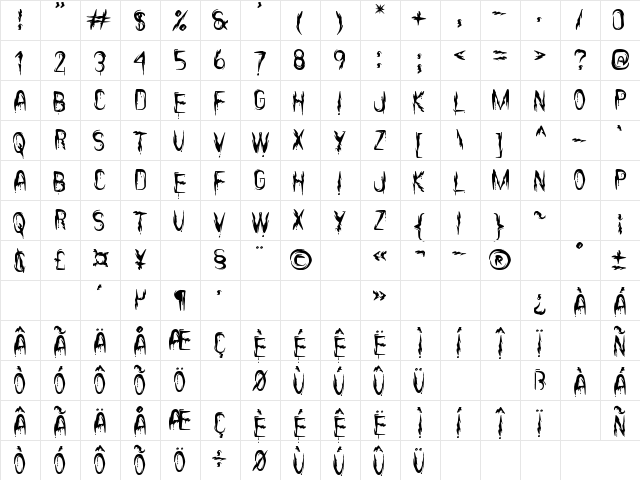
it's Scary Now St Regular
Design Context for it's Scary Now St Typeface
it's Scary Now St leans into the macabre with letterforms designed to disturb and intrigue in equal measure.
Ideal for Halloween projects, horror film titles, haunted house signage, and dark editorial design.
Font Pairing: Pair with a clean neutral sans-serif for body copy to let it's Scary Now St's character lead without overwhelming the composition.
Pro Tip: it's Scary Now St works best as a headline or focal element. Pair it against plain, neutral body text to amplify the contrast.